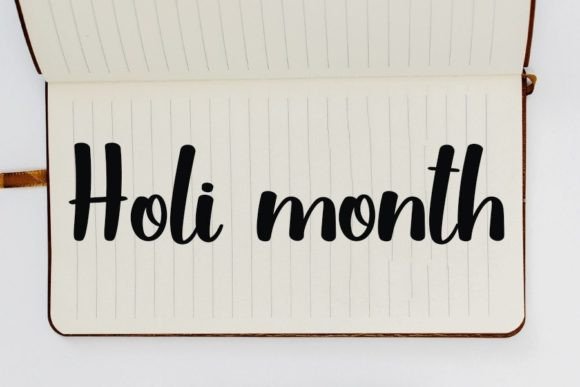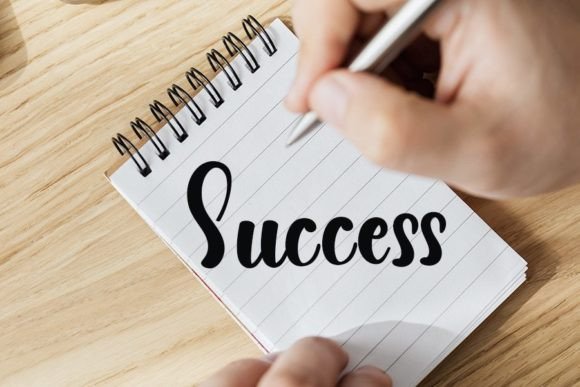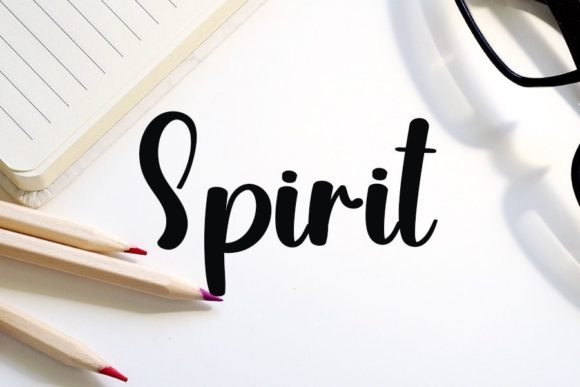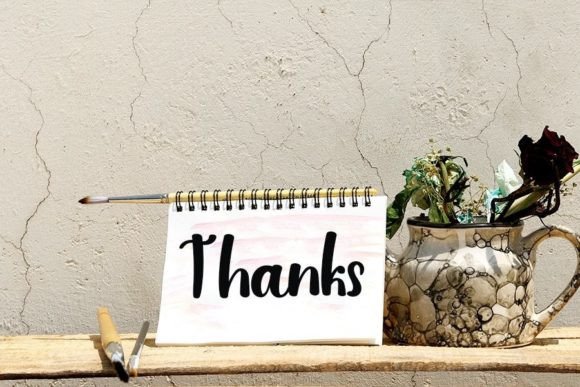
Introducing December Font: Elevate Your Designs with Elegance
Are you on the hunt for a font that adds a touch of sophistication and charm to your projects? Look no further than December Font, a stunning handwritten font that embodies elegance and refinement. With its unique and timeless style, December Font is perfect for designers and crafters seeking to create breathtaking designs that leave a lasting impression.
The Beauty of December Font
December Font is a neat and beautiful handwritten font that boasts an elegant touch, making it ideal for a wide range of projects. Whether you’re working on a logo, branding materials, social media graphics, or even a website, this font is sure to impress. Its incredibly distinct style sets it apart from other fonts, giving your designs a unique and recognizable flair.
Key Features of December Font
- Handwritten Elegance: December Font features a beautiful, handwritten style that adds a personal touch to your designs.
- Timeless Style: The font’s classic and sophisticated look ensures that your designs will remain stylish for years to come.
- Versatility: December Font is perfect for a variety of projects, from logos and branding materials to social media graphics and websites.
- Easy to Read: The font’s clear and legible design makes it easy to read, even at smaller sizes.
Why Choose December Font?
With so many fonts available, why choose December Font for your projects? Here are just a few reasons:
- Unique Style: December Font’s distinct style sets it apart from other fonts, ensuring your designs stand out from the crowd.
- Elegant Touch: The font’s elegant touch adds a level of sophistication to your designs, perfect for high-end brands and luxury projects.
Using December Font in Your Designs
December Font is incredibly versatile and can be used in a variety of design projects. Here are a few ideas to get you started:
- Logo Design: Use December Font to create a stunning logo that showcases your brand’s personality and style.
- Branding Materials: Create business cards, letterheads, and other branding materials that feature December Font.
- Social Media Graphics: Use December Font to create eye-catching social media graphics that grab attention and drive engagement.
- Web Design: Incorporate December Font into your website design to create a cohesive and stylish online presence.
Tips for Getting the Most Out of December Font
To get the most out of December Font, here are a few tips to keep in mind:
- Experiment with Colors: December Font looks great in a variety of colors, so don’t be afraid to experiment and find the perfect hue for your design.
- Play with Sizes: The font’s clear and legible design makes it easy to read at a range of sizes, so try it out at different sizes to see what works best for your project.
- Pair it with Other Fonts: December Font pairs well with other fonts, so try combining it with a sans-serif font for a stylish contrast.